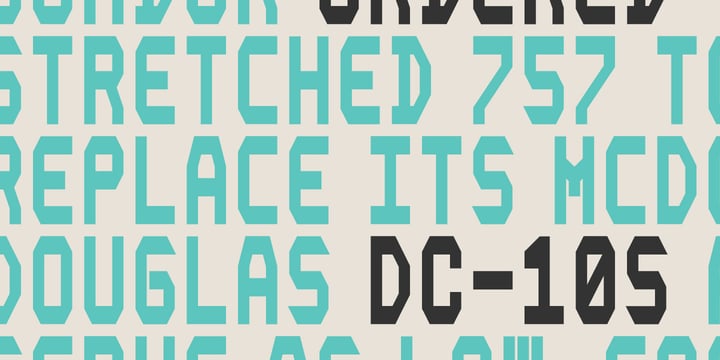
YWFT Composite
YWFT Composite by YouWorkForThem
About YWFT Composite Font Family
YWFT Composite is a bitmap/digital style design that was originally inspired from collecting machine generated printouts during press checks. YWFT Composite has a special power of capturing a very digital, robotic like alphabet that works for both on screen and print layouts. It has been used in numerous magazines as a strong masculine header face, but can even be used for short body content on screen. YWFT Composite was designed in 1999, converted to opentype in 2010.